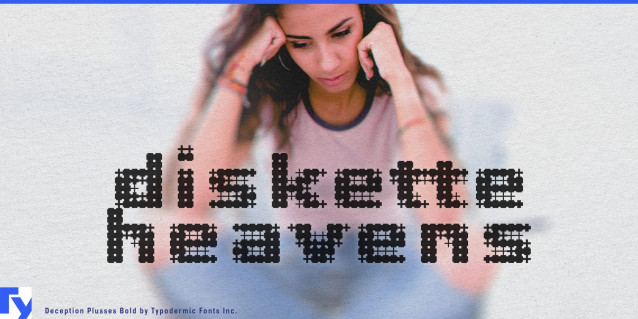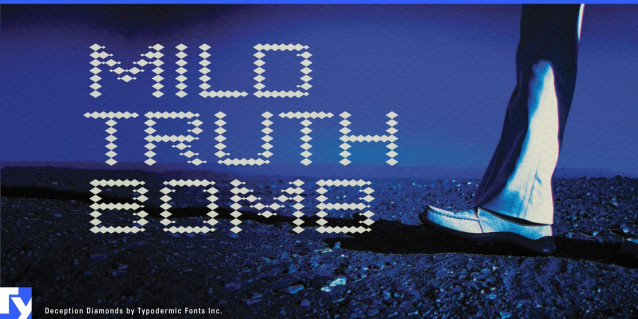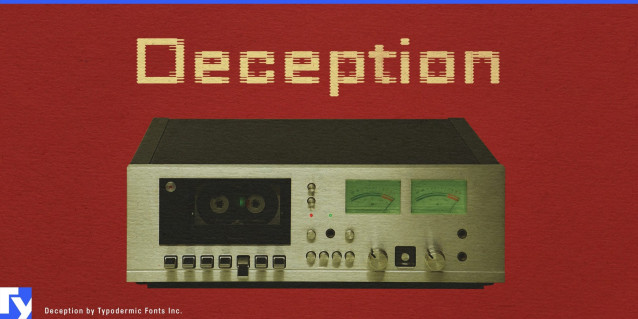
Deception Font
Deception Font is a pixel typeface that refuses to sit still. Built from four master pixels and rendered in four shades of gray, it trades sharp corners for softened edges, making each glyph feel alive with low-res texture. The result is a bitmap typeface that goes beyond blocky nostalgia—part glitch art, part retro tech, part experimental display system.
The family includes ten distinct styles, each with its own personality. Array stacks modular forms into a subtle, architectural grid. Bars stretches pixels into horizontal bands for a faux-lenticular shimmer. Blocks compresses detail into bold, square punches of tone. Diamonds refract your text into glittering geometric clusters. Lines produces banding and halftone illusions that shift with scale. Particles scatters fine dots like a fading dot-matrix printout. Plusses injects playful, charged repetition. Process mimics the streaks and smears of aging thermal prints. Scanlines drops you straight into a CRT text crawl. And System—born from a happy pixel-swap accident—scrambles shading into a noisy, unpredictable buzz.
Each style is available in Regular and Bold, with fractions, ordinals, and broad Latin language coverage. Whether you’re setting titles for an indie game, branding a tech-forward product, designing posters for a music festival, or building vaporwave merch, Deception gives you a toolkit of digital voices. It can be clinical, chaotic, nostalgic, or subversive—all without losing its graphic punch.
In a design world where polish is the default, Deception makes imperfection a deliberate choice. It’s more than a pixel font; it’s a modular glitch lab, ready to bend your text into something strange, stylish, and unforgettable.